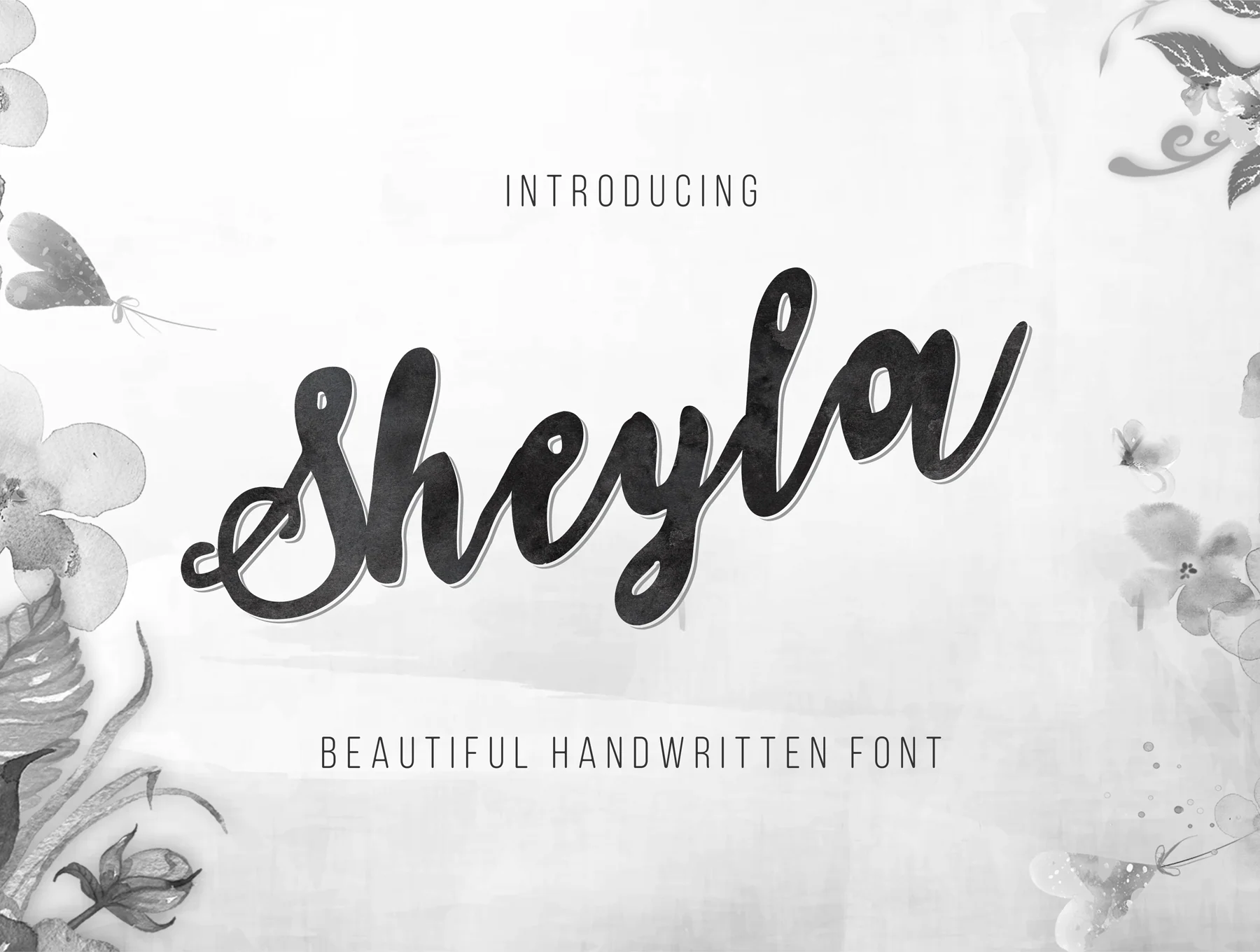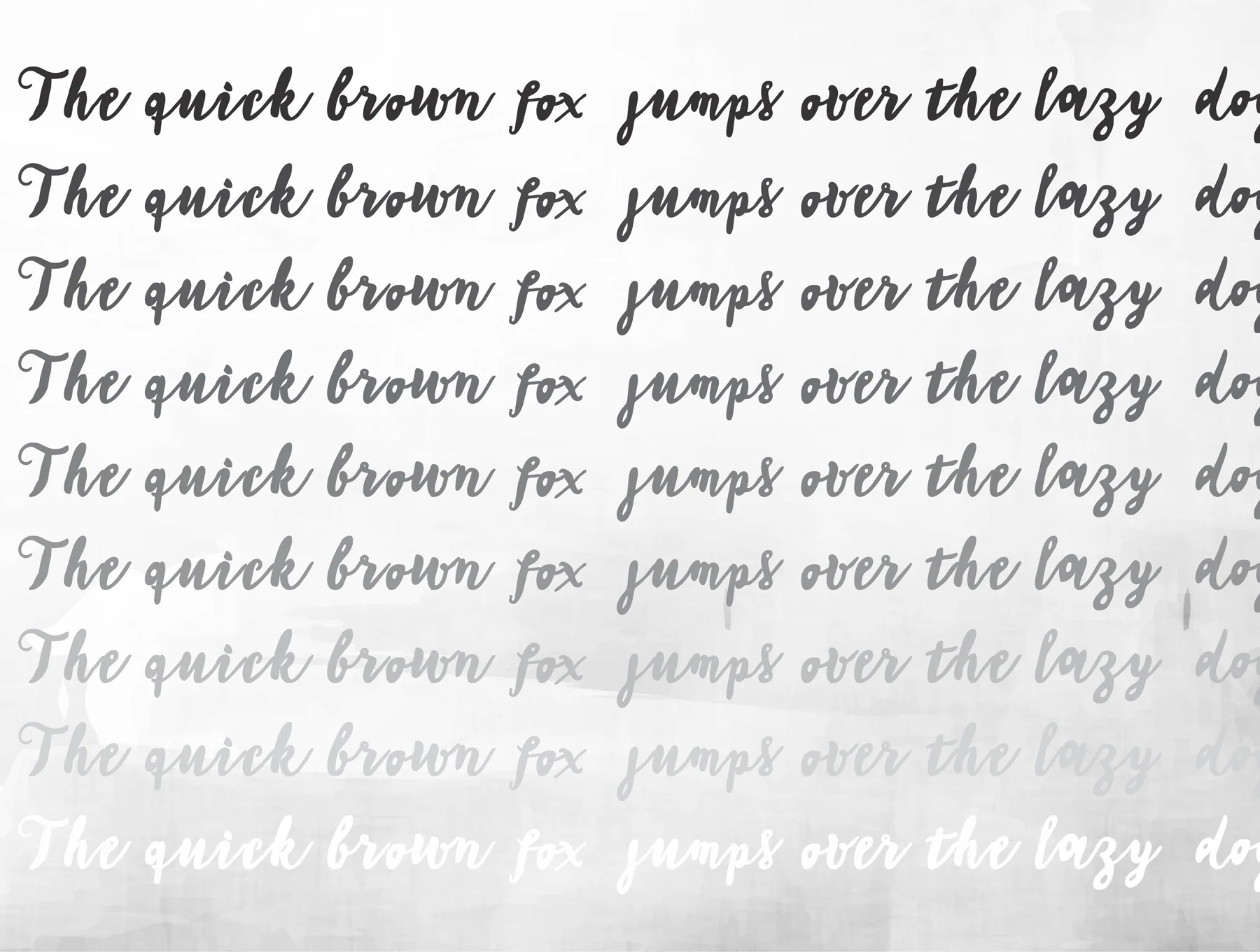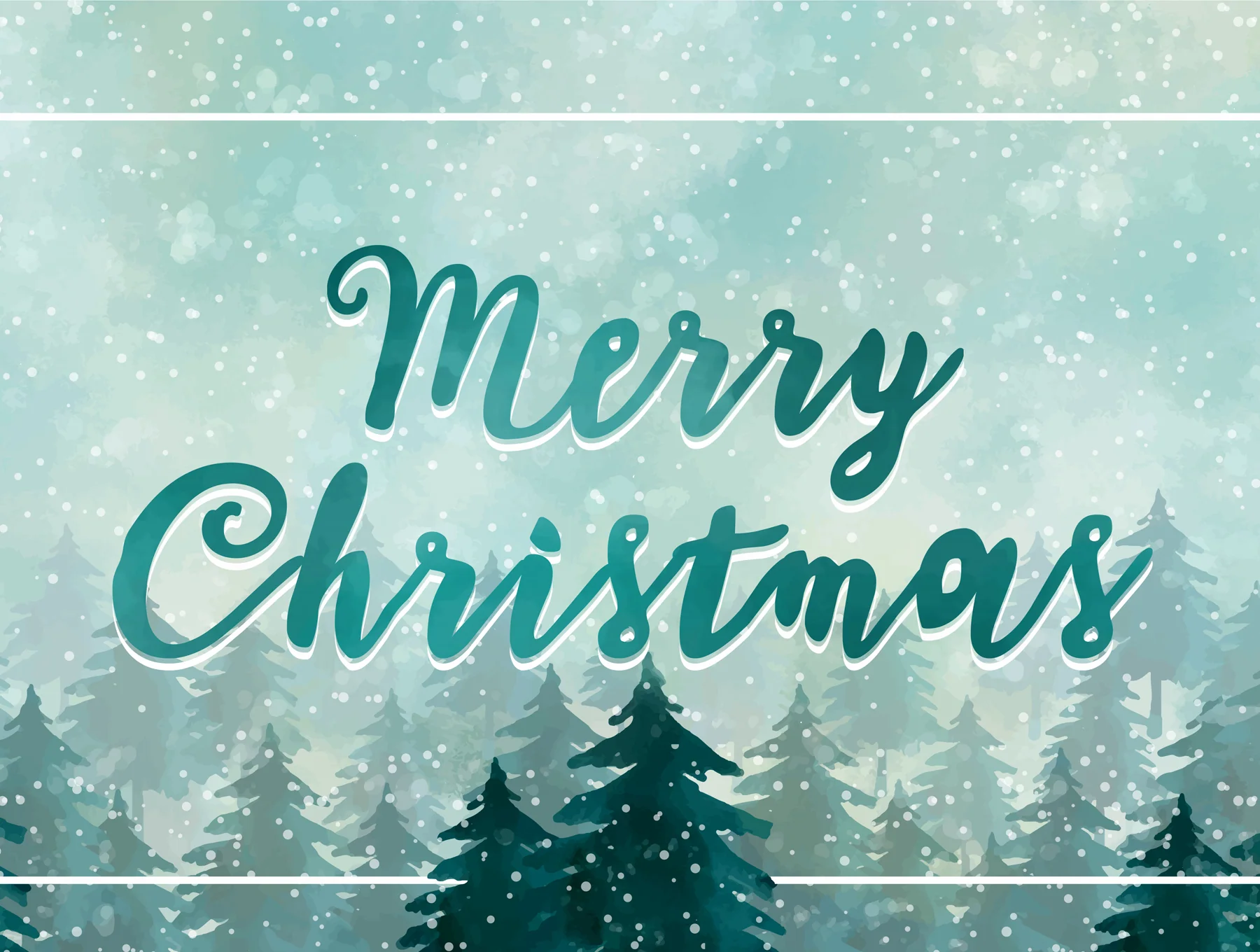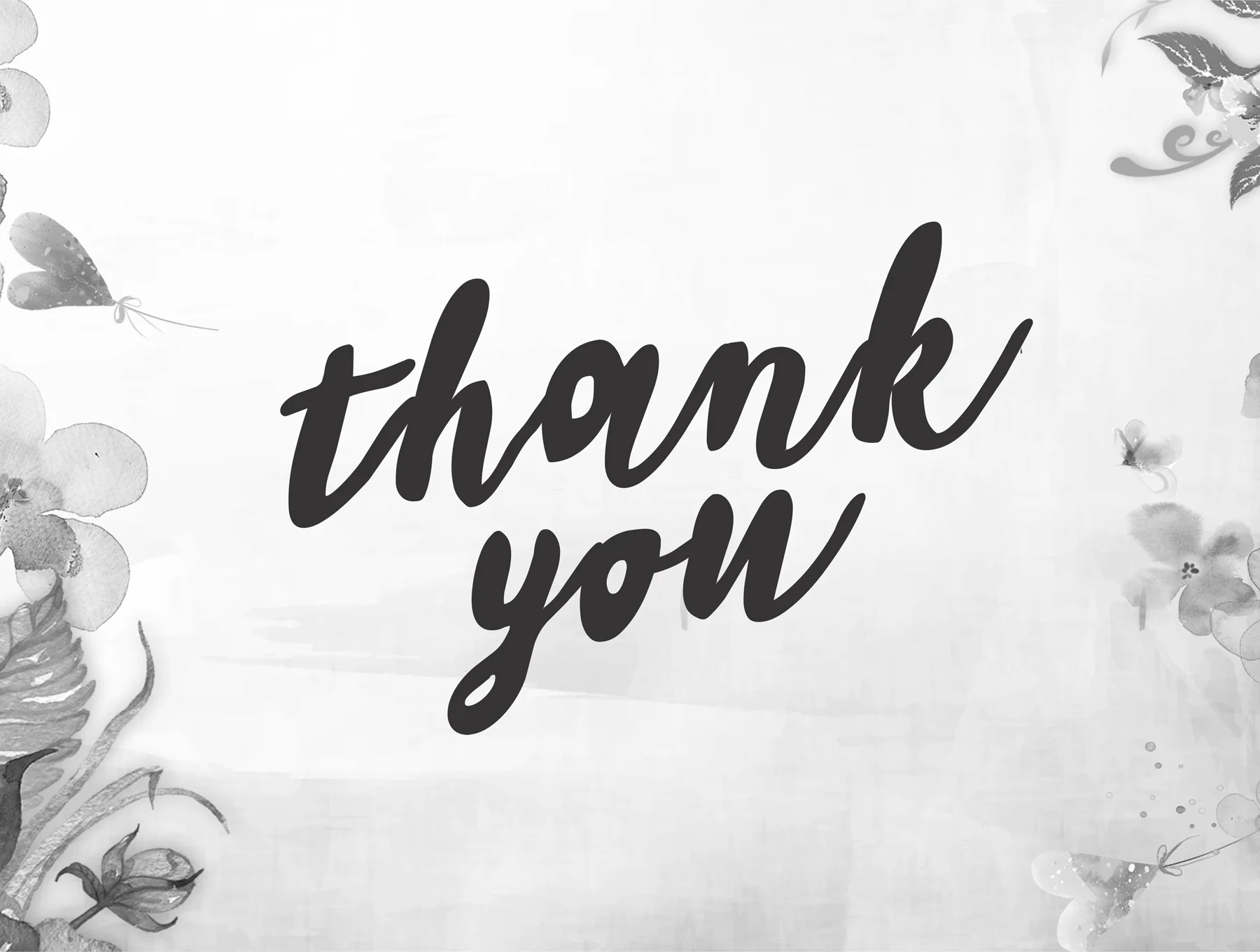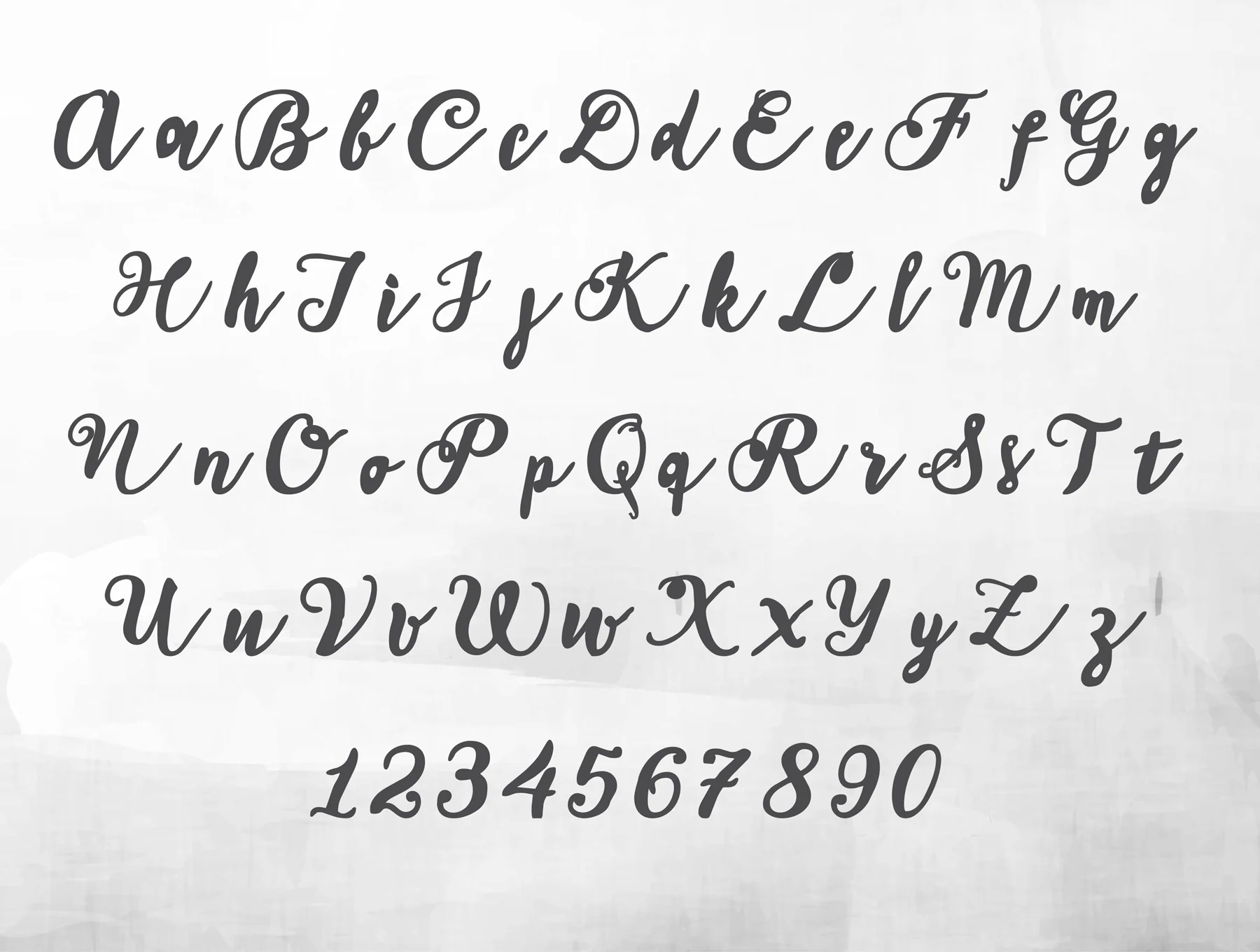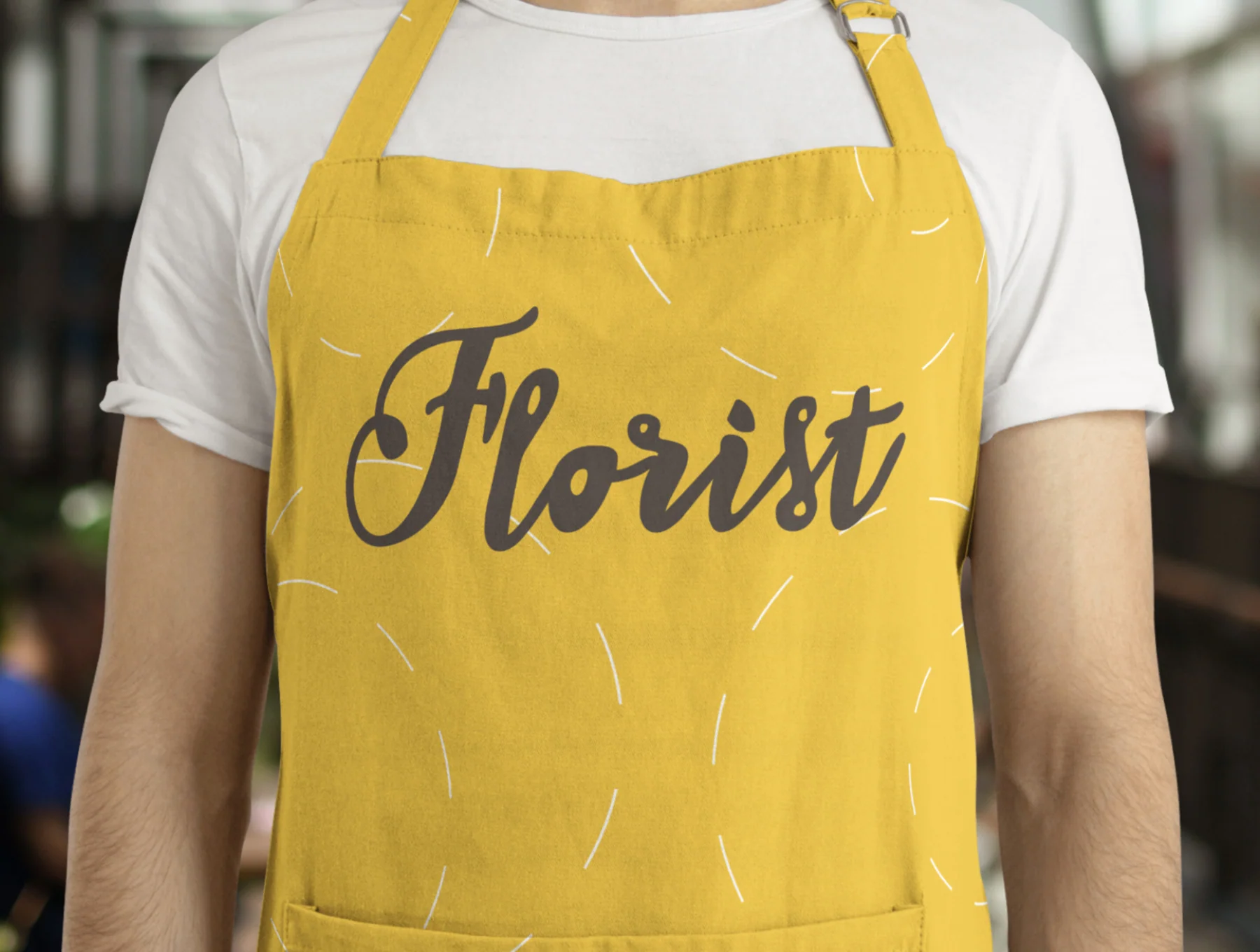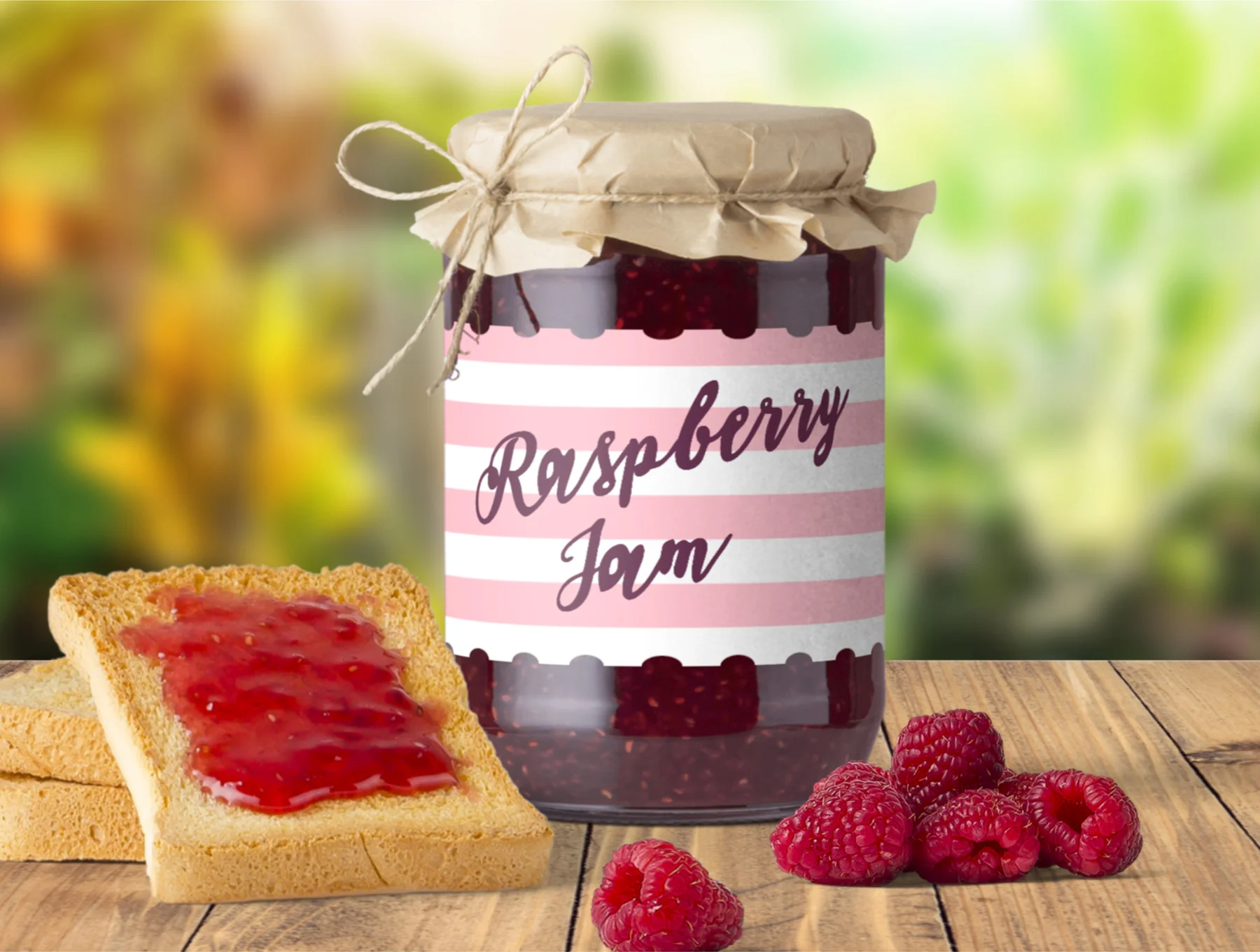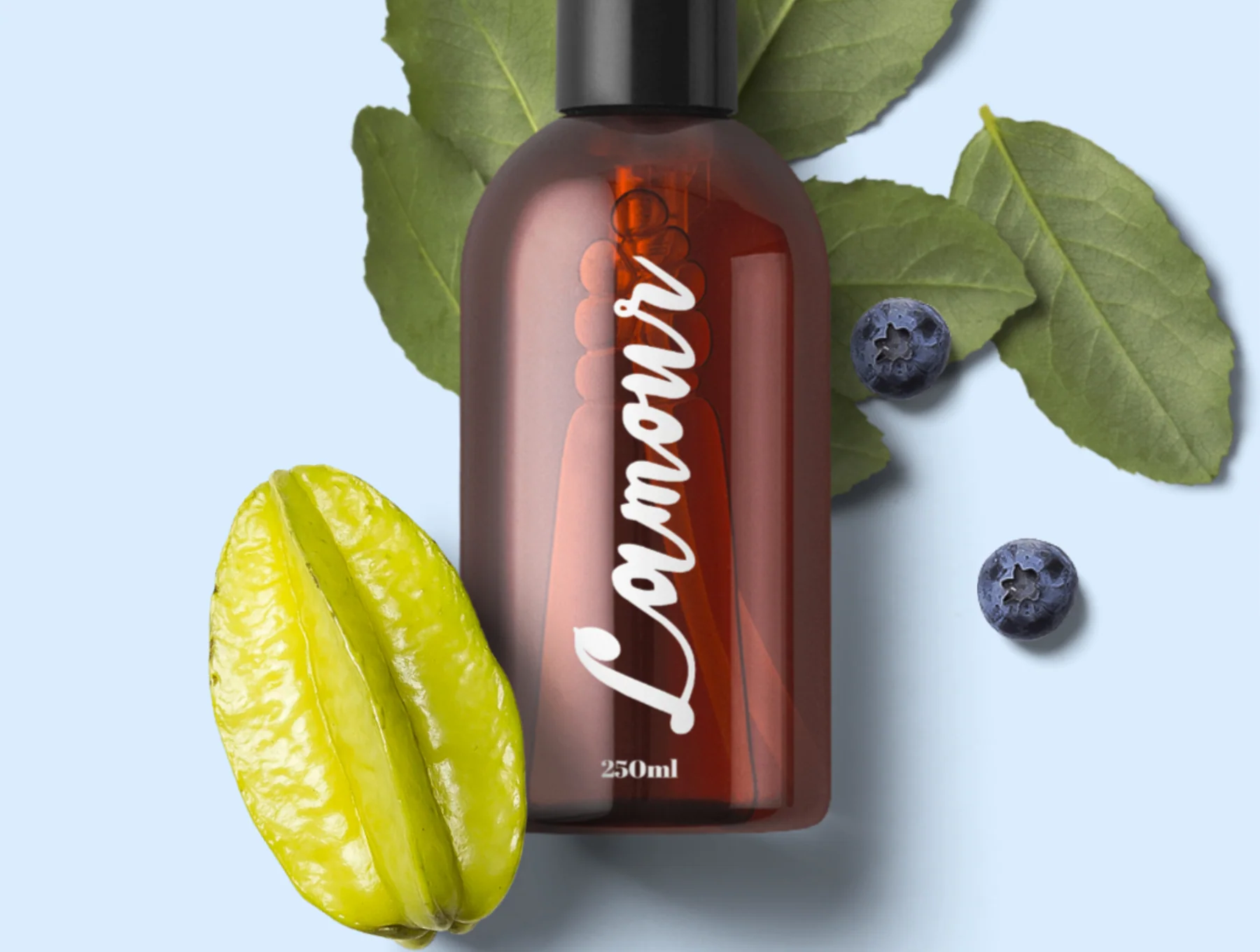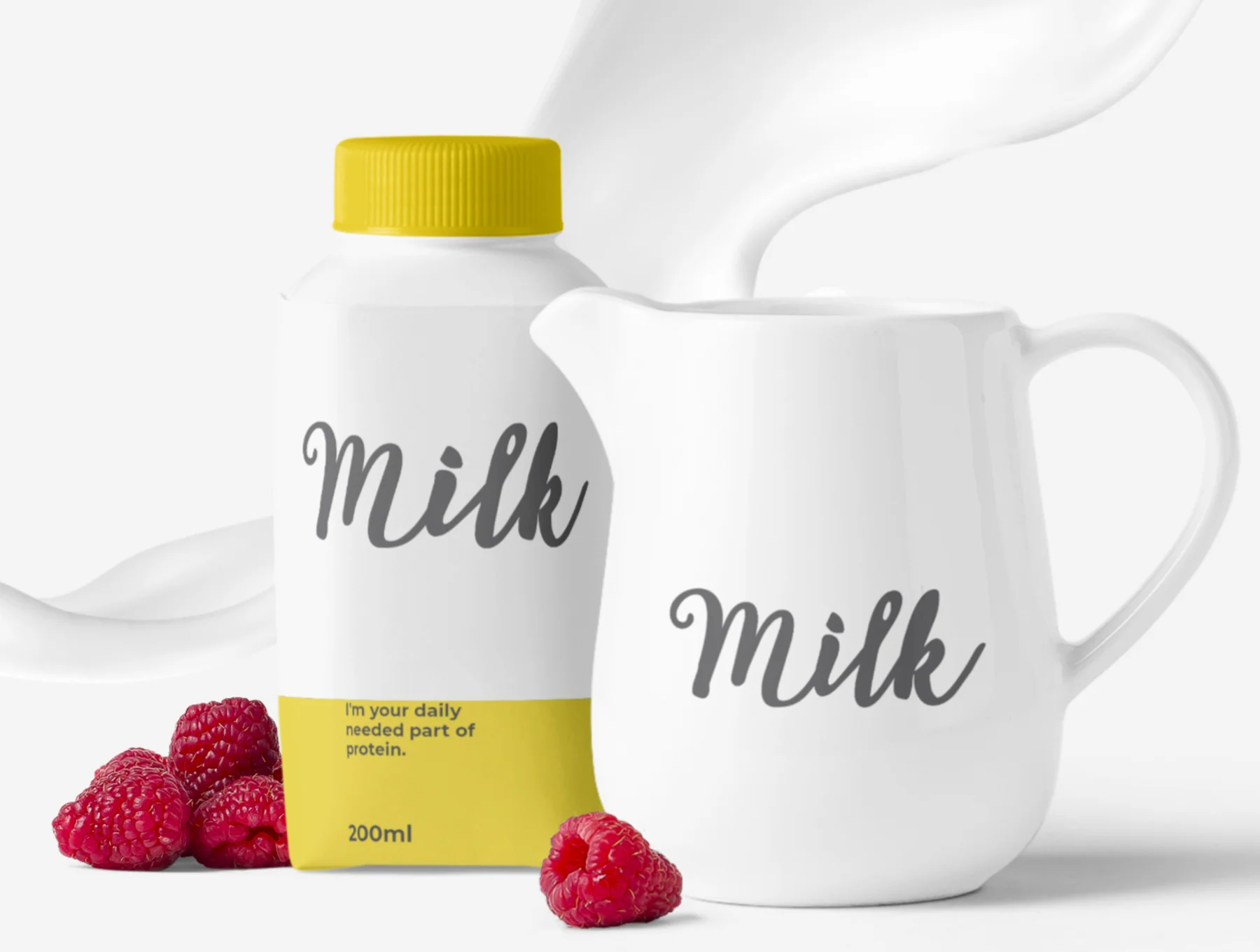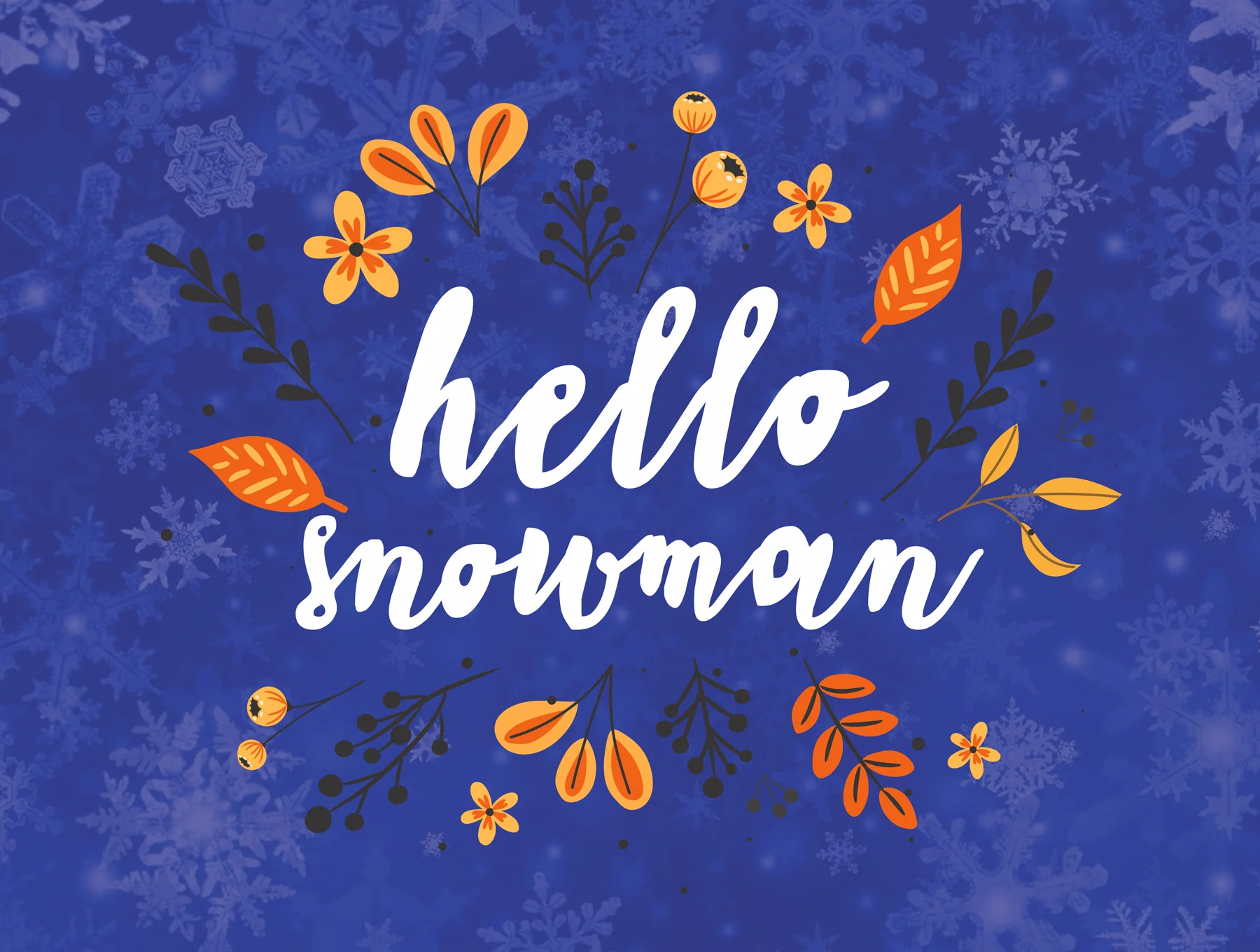
Sheyla - Handwritten Typeface
Sheyla Handwritten Font
Elegant calligraphy style
Retro-inspired look
Flowing script design
Hand-drawn writing feel
Sheyla is an elegant, structured typeface with soft handwritten edges, designed for clear reading at any size. The pack includes the default Alexandra typeface, suited to book covers, chapter headings, posters, postcards, party decor, greeting cards, invitations, envelopes, headlines, and graphic themes.